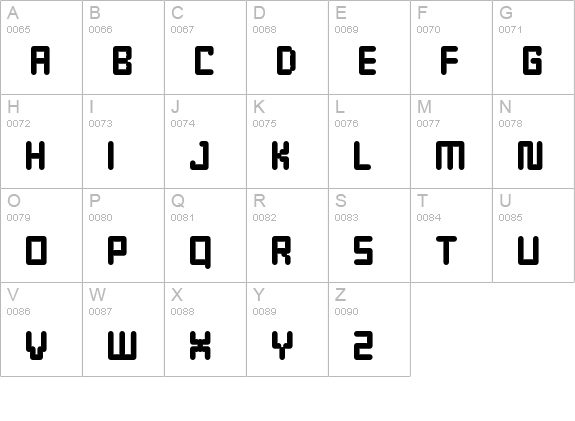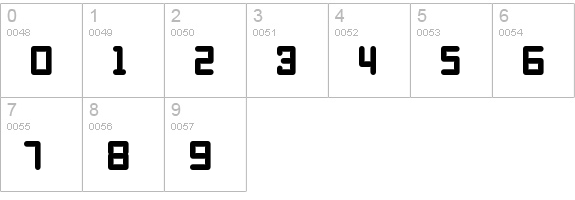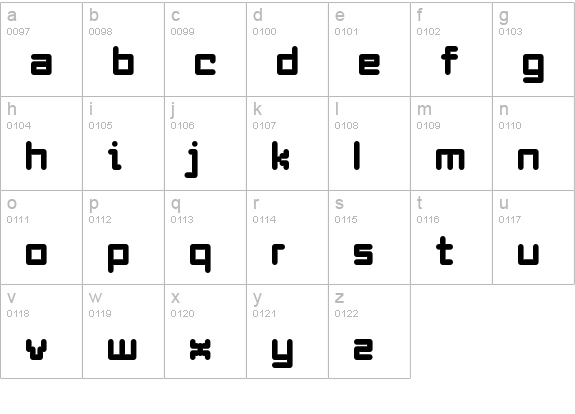
Enam ExtraBold Font Details
Enam ExtraBold is an extra-heavy, attention-grabbing variant in the Enam typeface family \xE2\x80\x94 well suited to high-impact headlines, posters, and bold branding.
Enam ExtraBold is a striking and commanding font that exudes confidence and modernity. With its bold and impactful design, Enam ExtraBold is perfect for making a statement in your design projects. The thick strokes and sharp edges of this font demand attention and create a strong visual impact. Enam ExtraBold is freely available to download at FontsMarket.com, making it accessible to all designers and creatives looking to add a touch of boldness to their work. Whether you're designing posters, logos, headlines, or any other creative project, Enam ExtraBold is sure to make a bold statement and leave a lasting impression on your audience. Unlock the power of bold typography with Enam ExtraBold and take your designs to the next level.